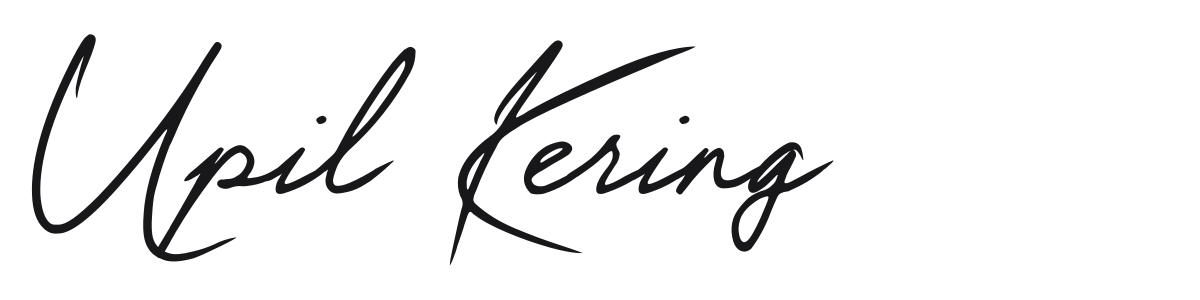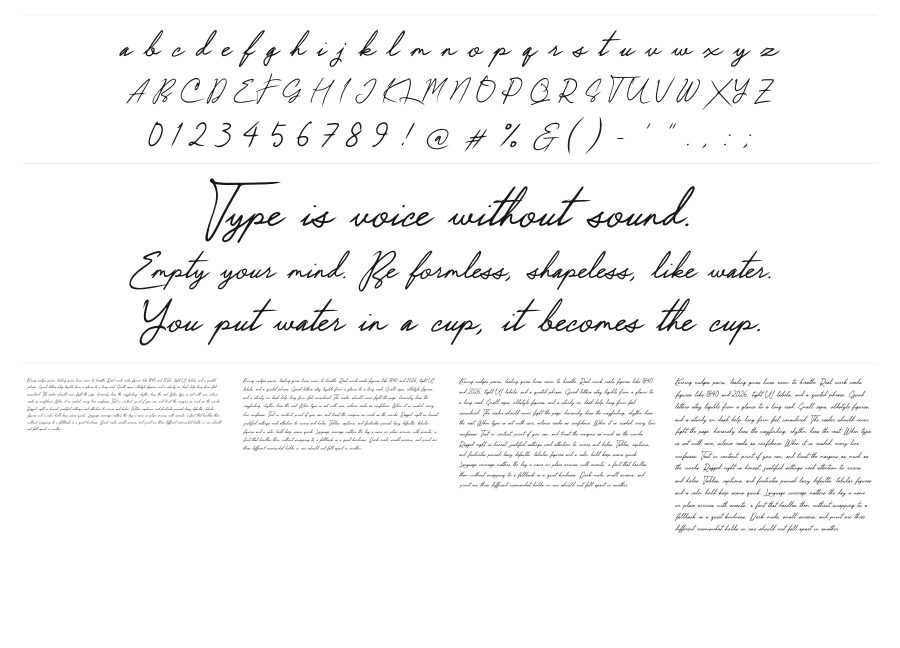
Upil Kering
Upil Kering is a loose, connected casual script that captures the energy of fast, natural handwriting. Thick downstrokes taper into wispy hairlines, giving it an authentic ink-on-paper quality. Works best at large display sizes for logos, packaging, and expressive headlines.